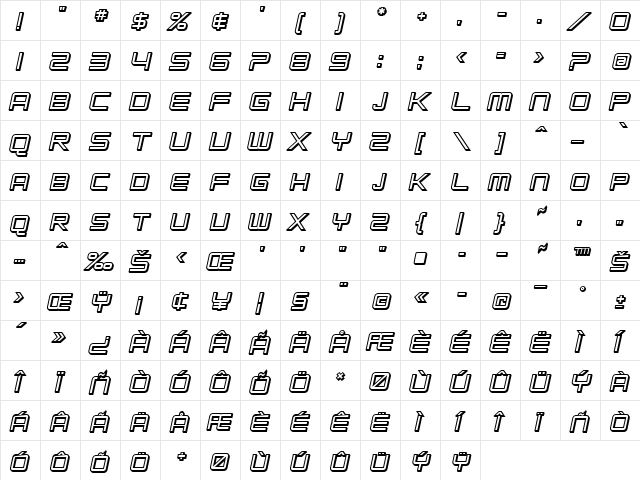
SF Chromium 24 SC Bold Oblique
Design Context for SF Chromium 24 SC Typeface
SF Chromium 24 SC is a composed and adaptable typeface that performs quietly and consistently across a wide range of design contexts. The slanted form adds forward momentum and visual energy. The heavy weight commands attention and anchors typographic hierarchies.
Pro Tip: Use SF Chromium 24 SC for emphasis, pull quotes, and subheadings where its slanted energy can add rhythm to the layout.